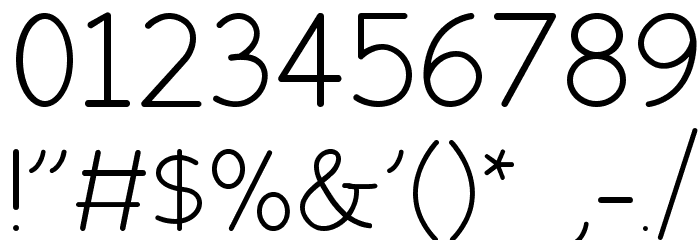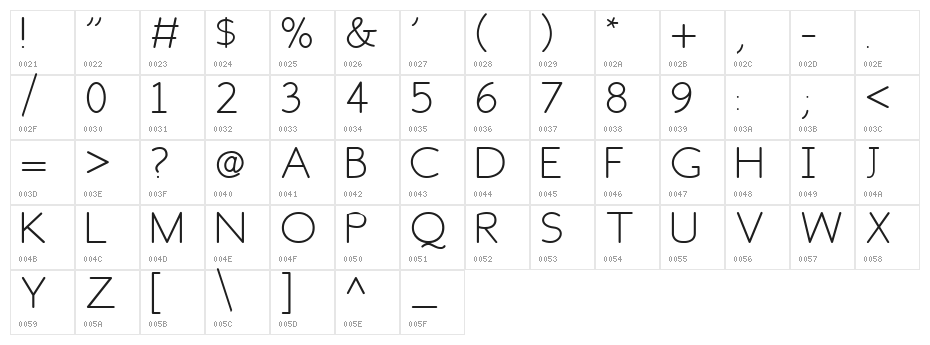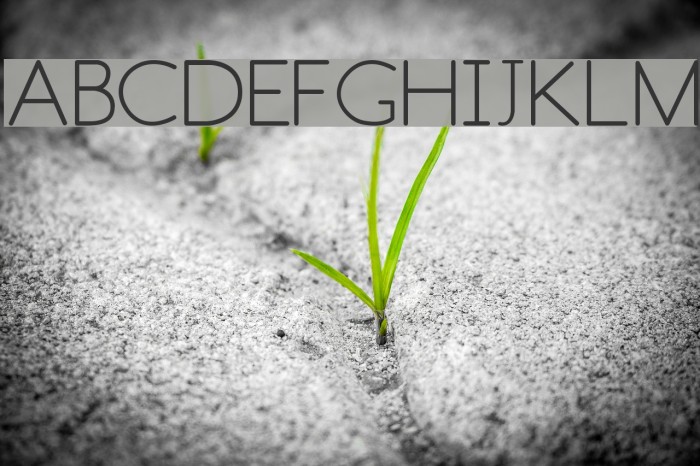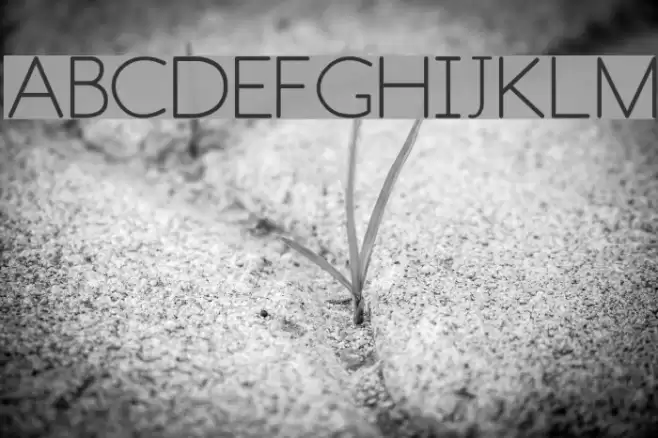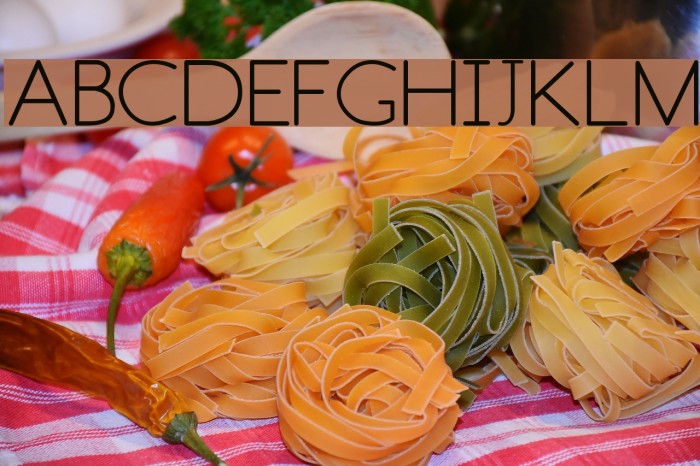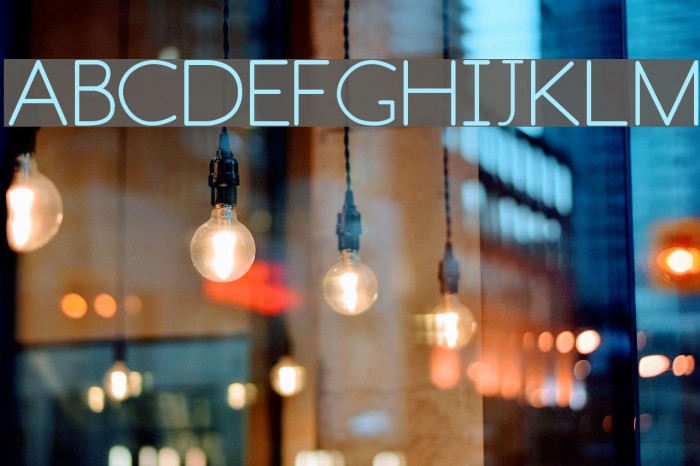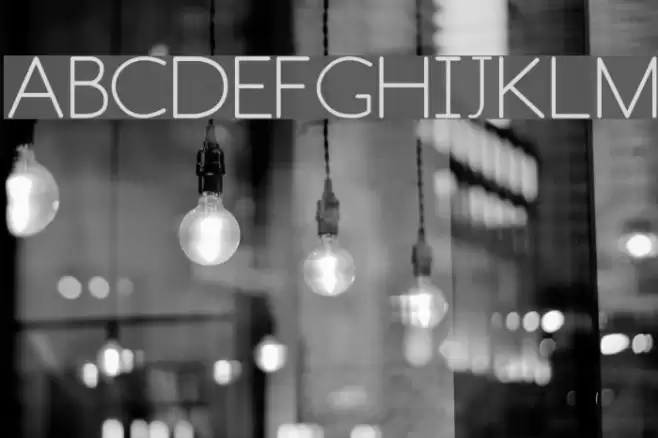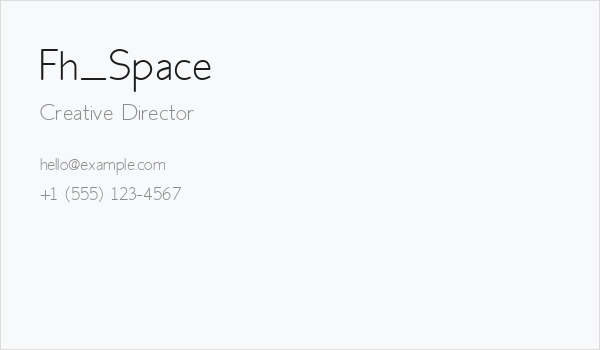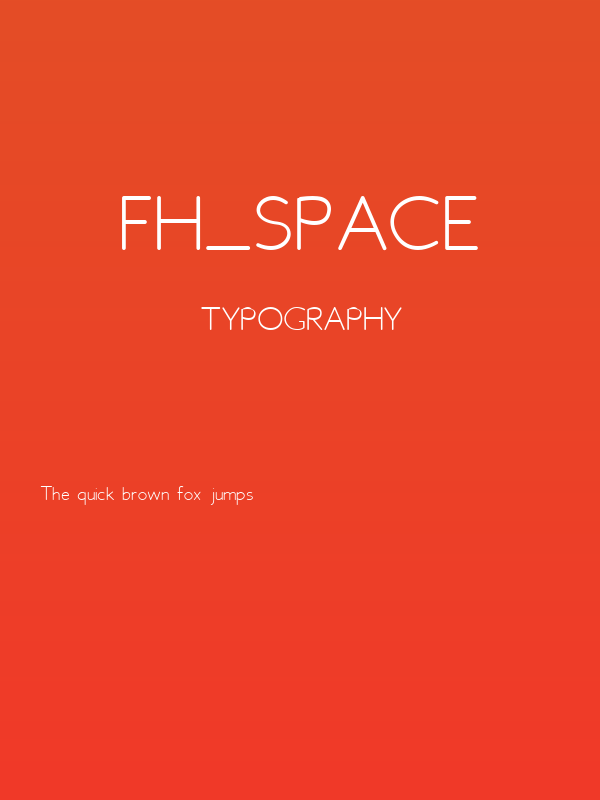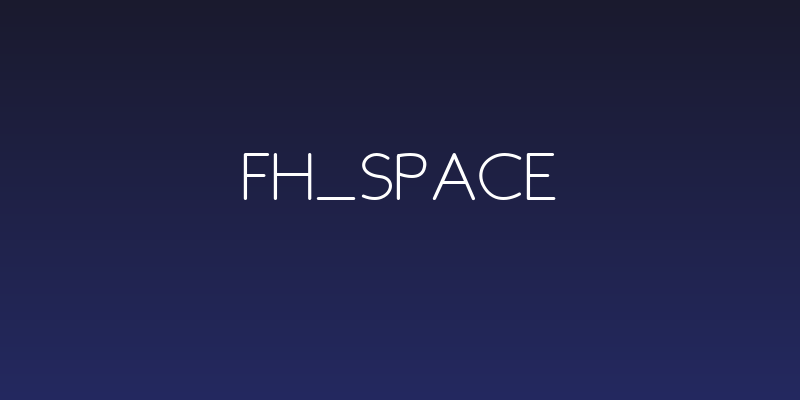
Fh_Space Font
Fh_Space Description
This font features a clean and modern design with a geometric sans-serif style. The characters are well-proportioned with a consistent stroke width, giving it a sleek and contemporary appearance. The uppercase and lowercase letters maintain a uniform height, contributing to its balanced look. The numerals are clear and legible, making them suitable for various applications. Special characters are included, enhancing its versatility. The overall aesthetic is minimalistic, making it ideal for projects that require a modern and professional touch.